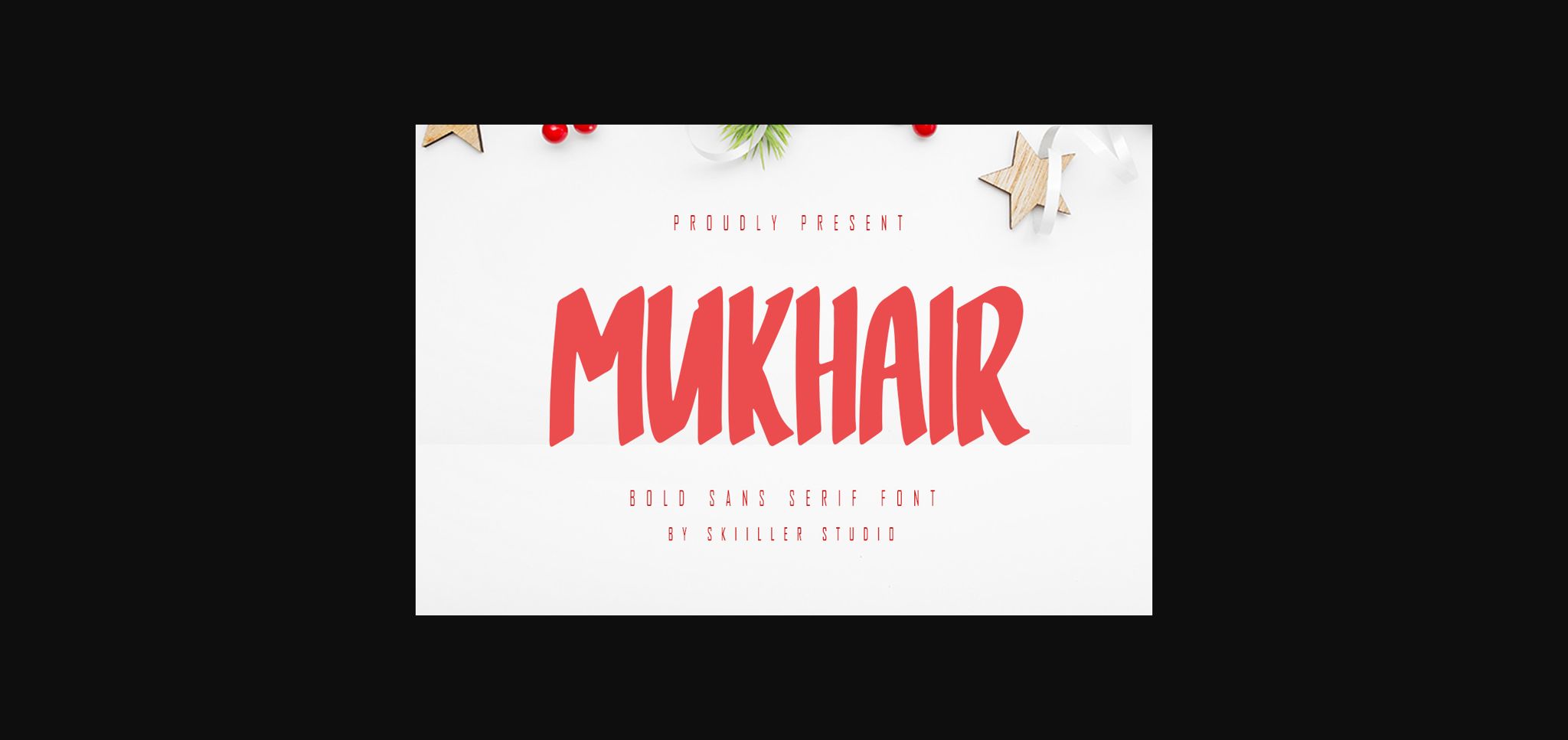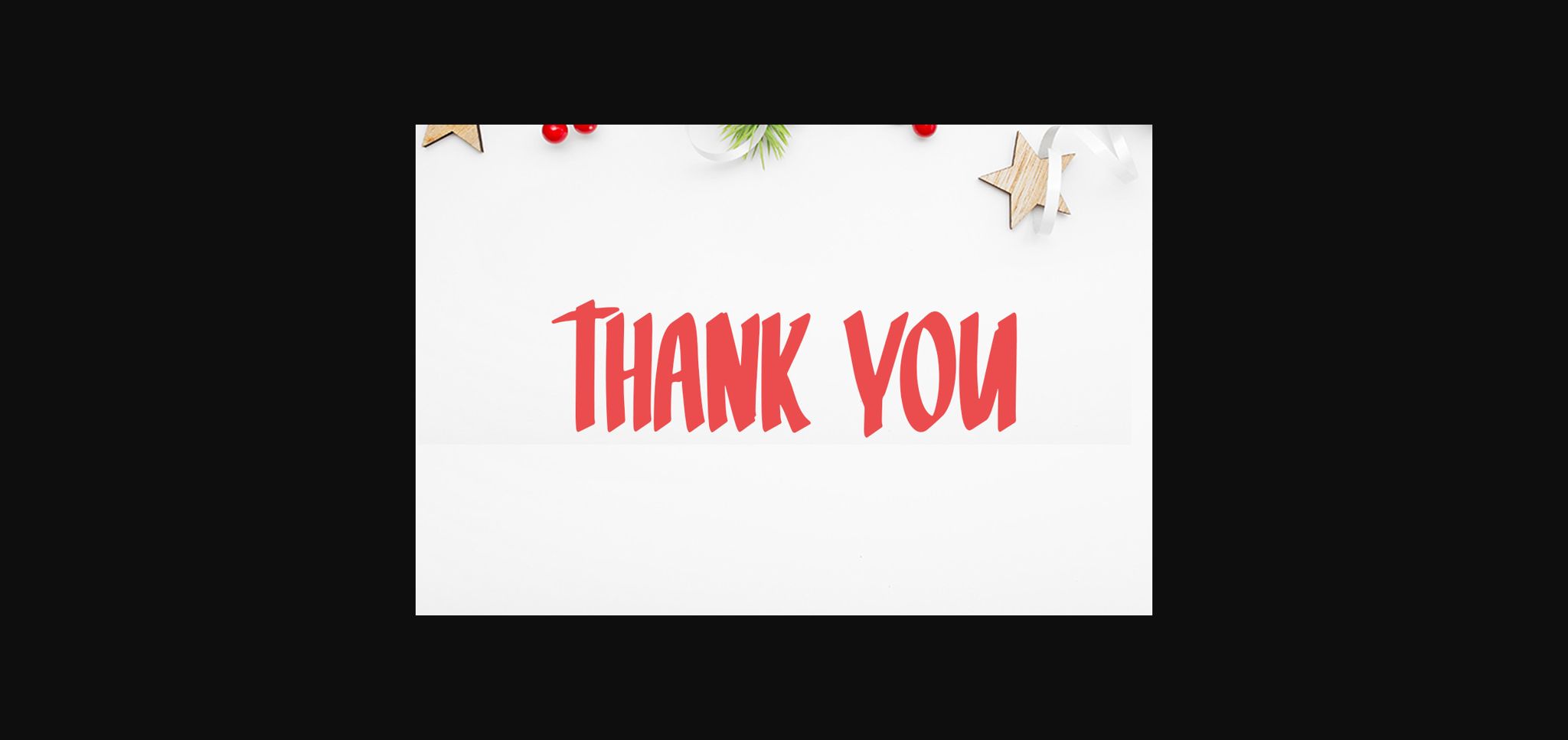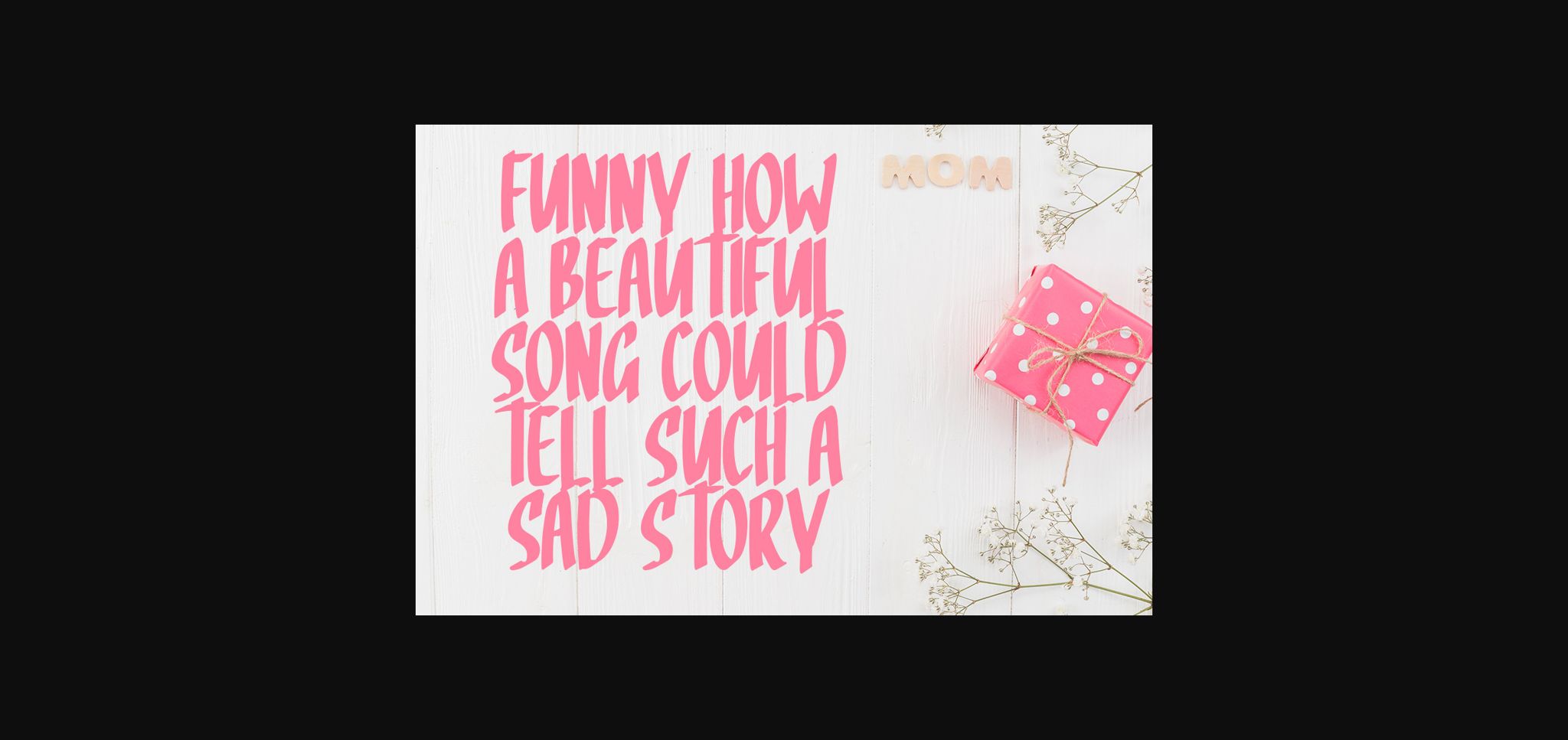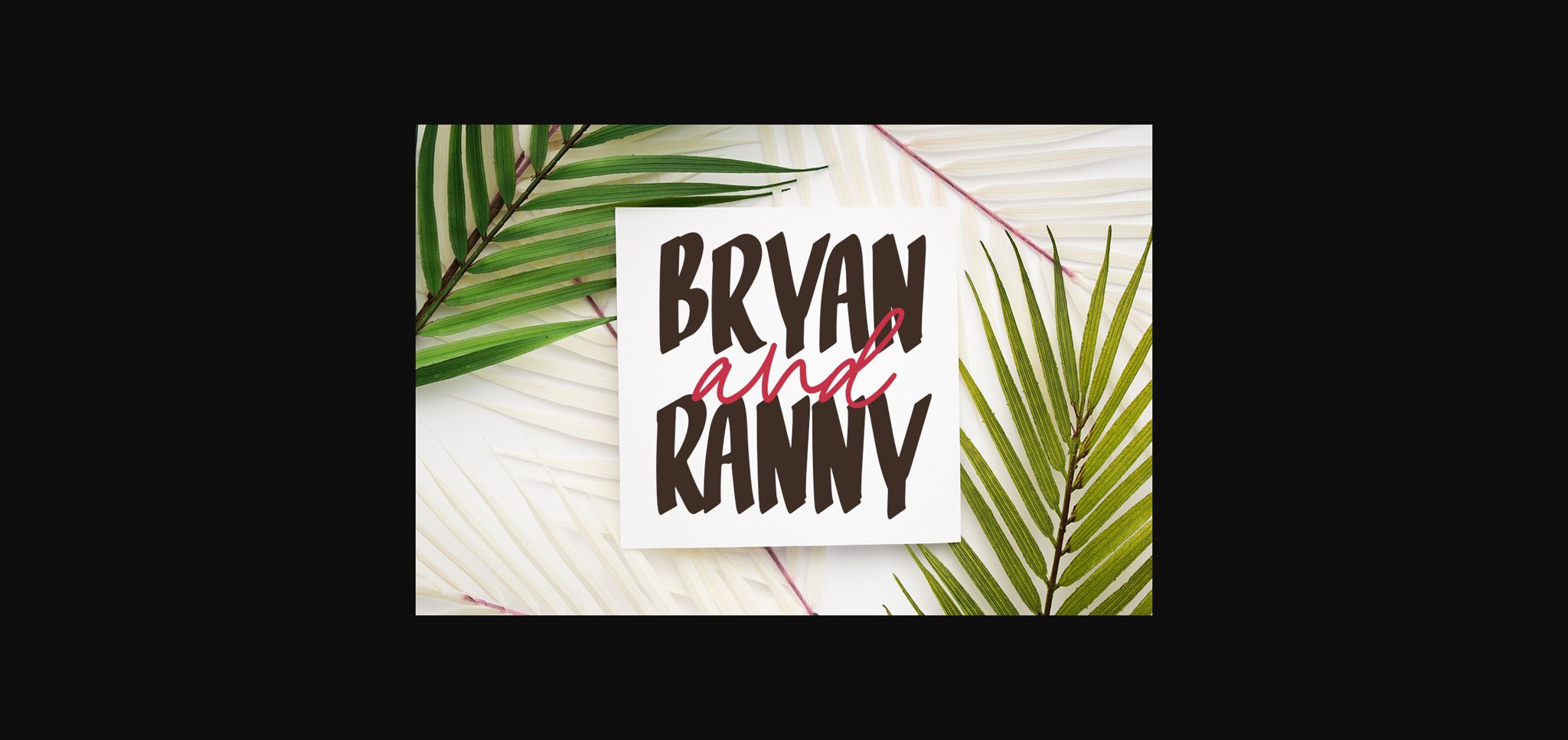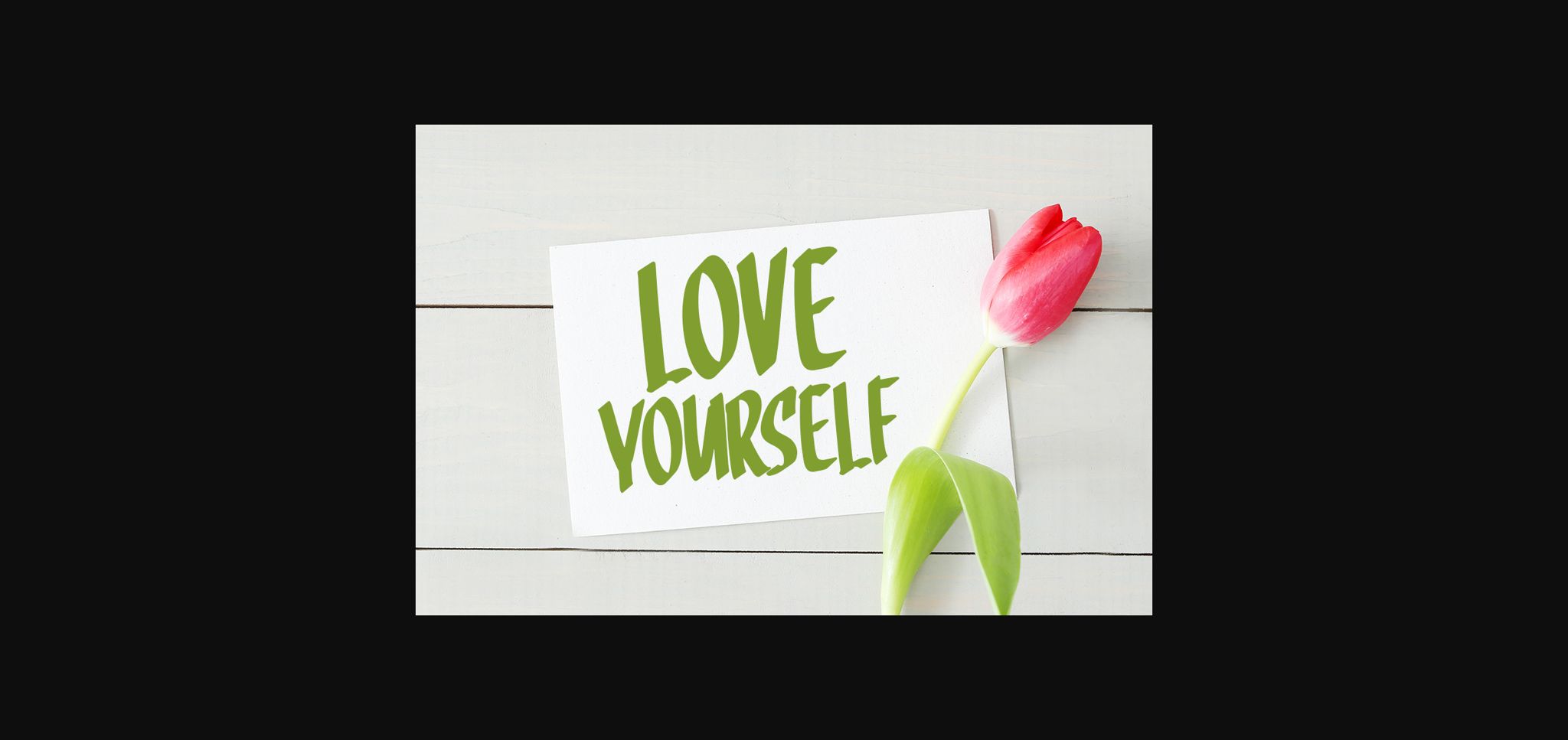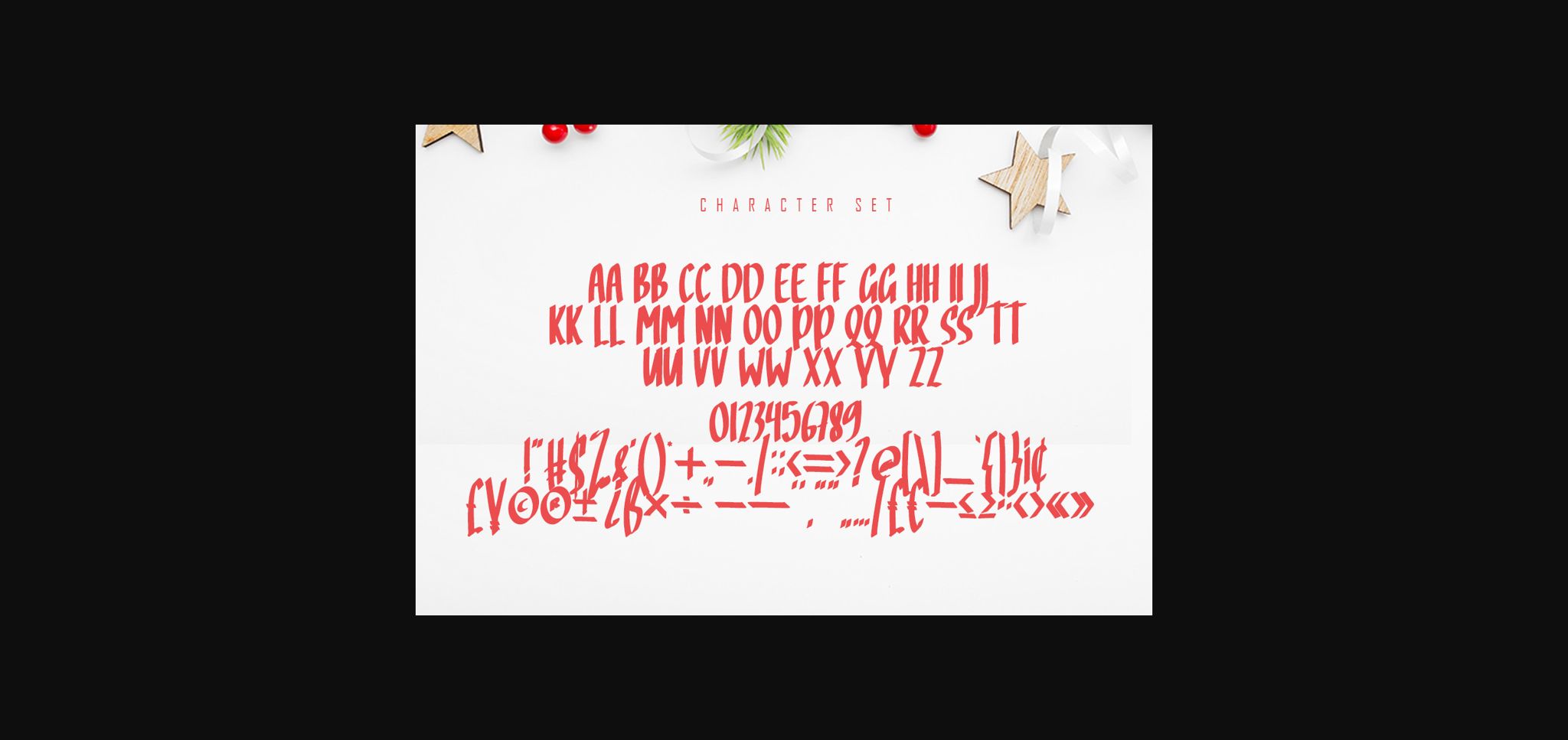
Mukhair Font
About Mukhair Font
Mukhair is a cool and bold sans serif font. It looks beautiful on a variety of designs requiring a personalized style.